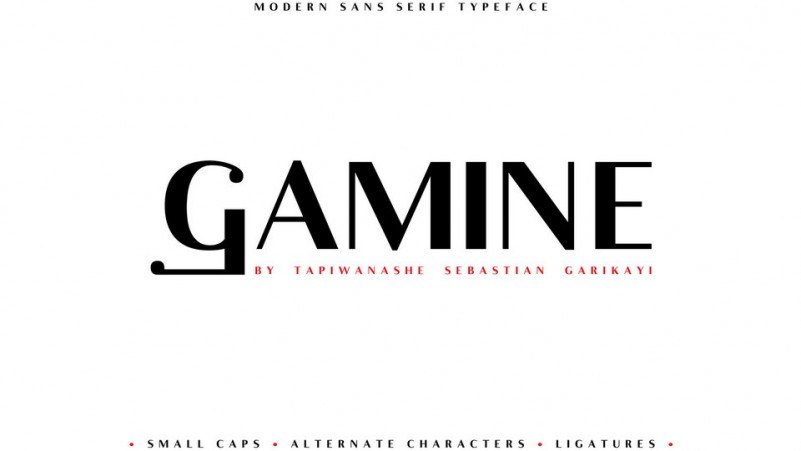
Gamine is an Elegant sans serif typeface Inspired by French Typography. It has very high contrast between the vertical and horizontal weights making it a great font for clean, classic design.
It is also very versatile. Armed with alternate swash capitals, small caps and discretionary ligatures, it will add a powerful dose of awesomeness to your designs!